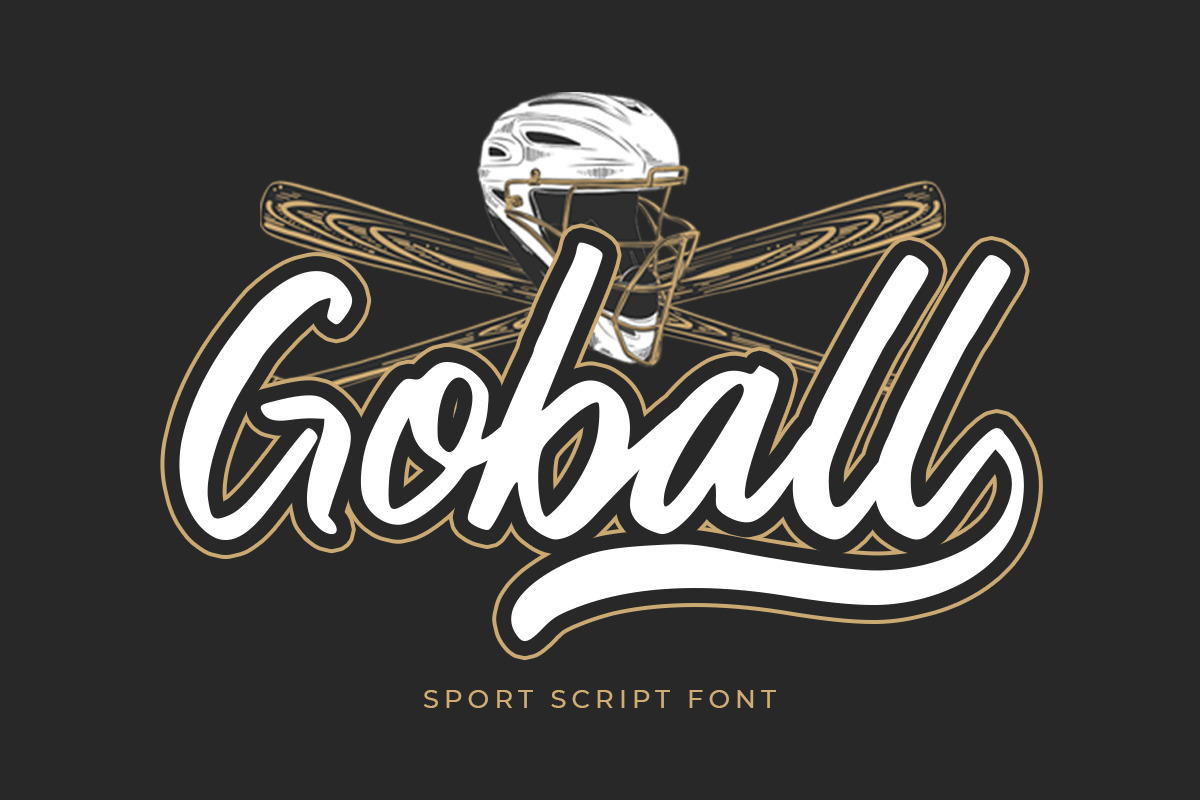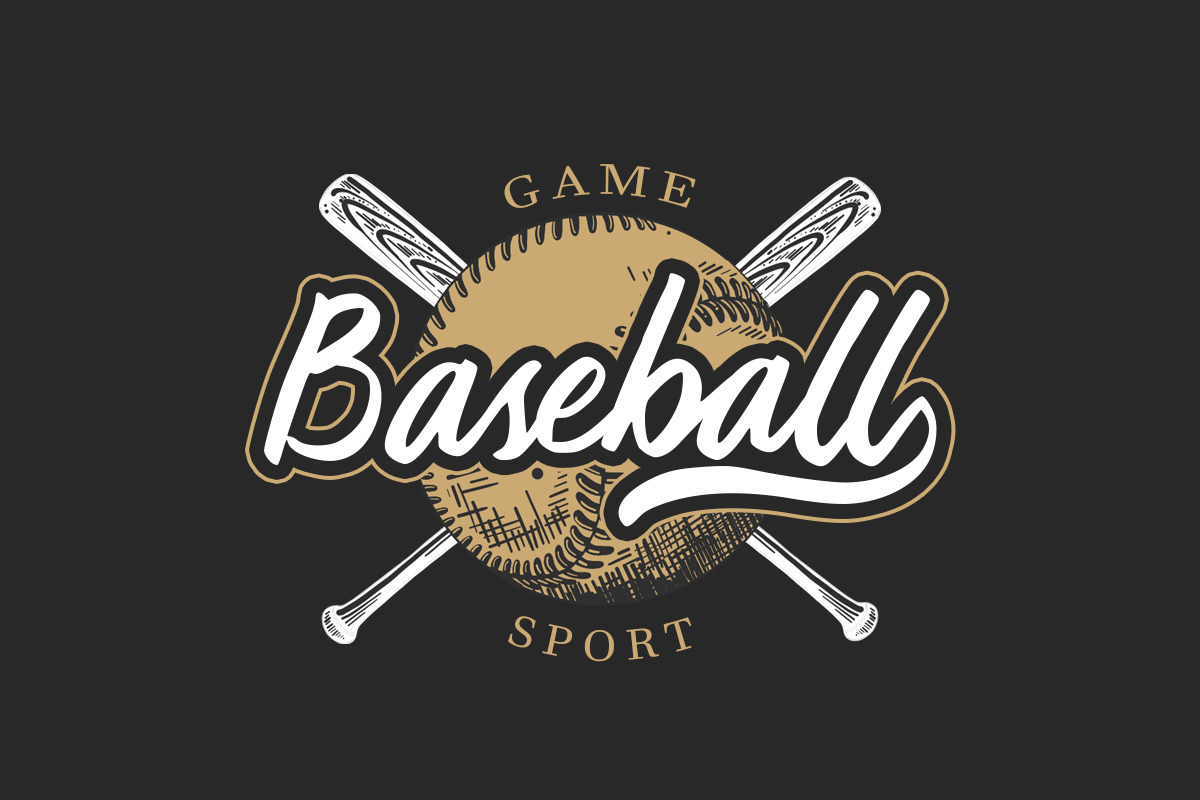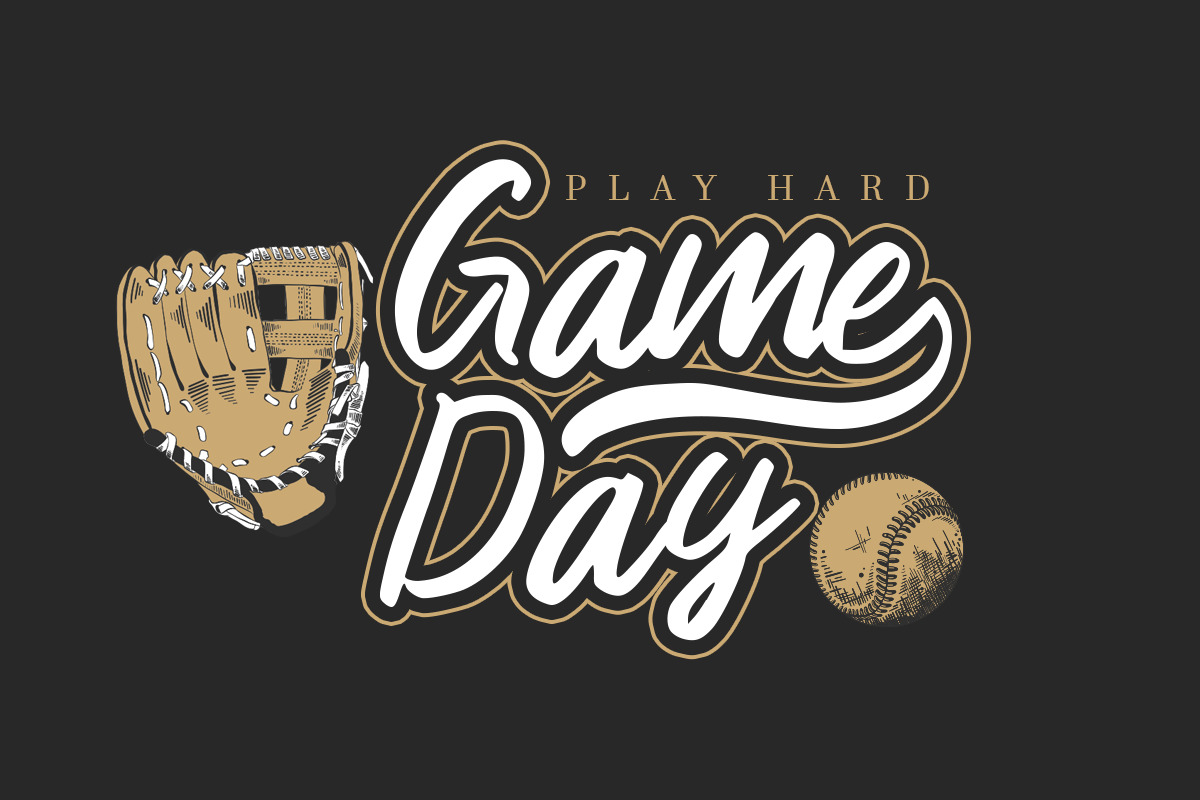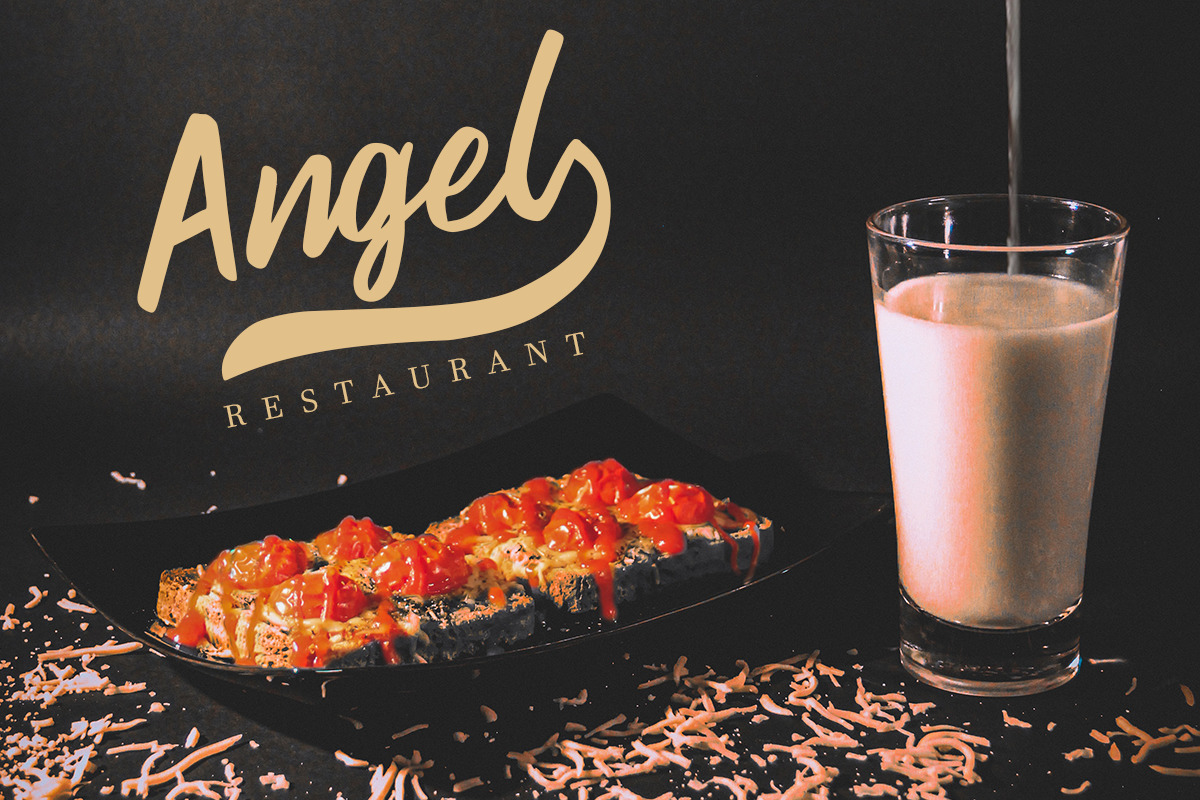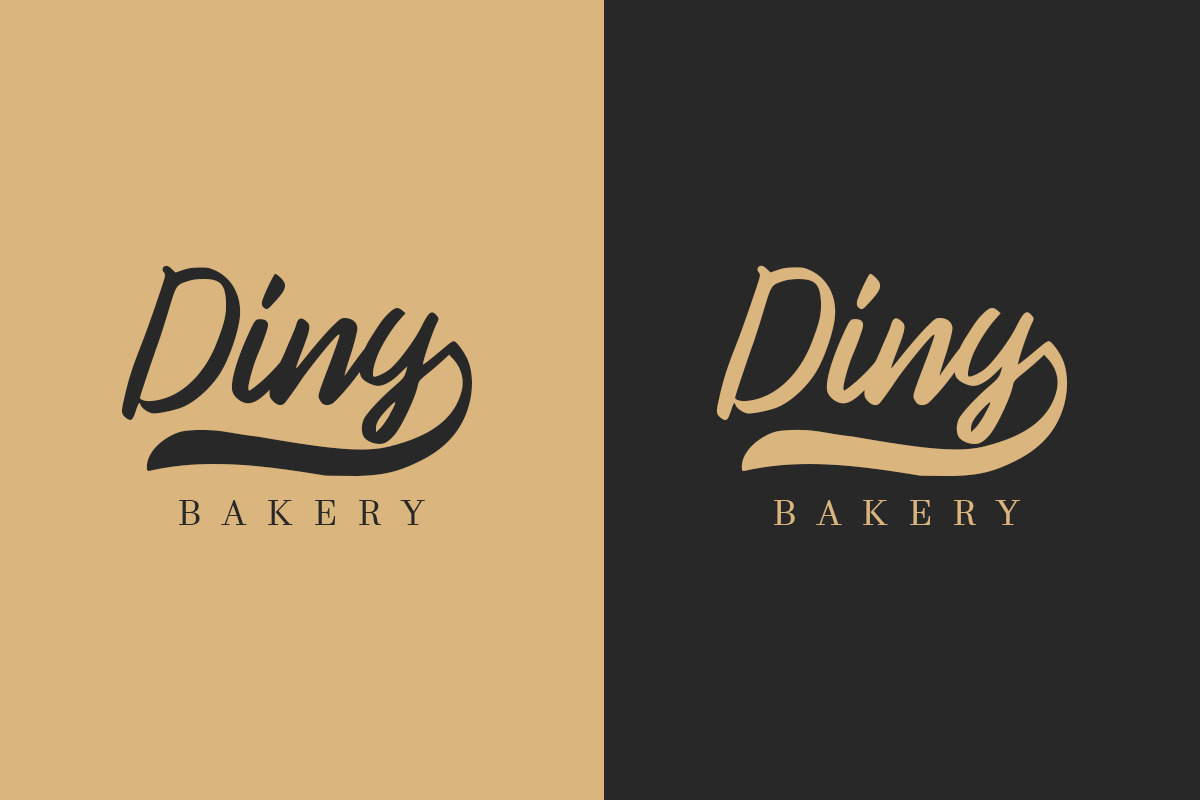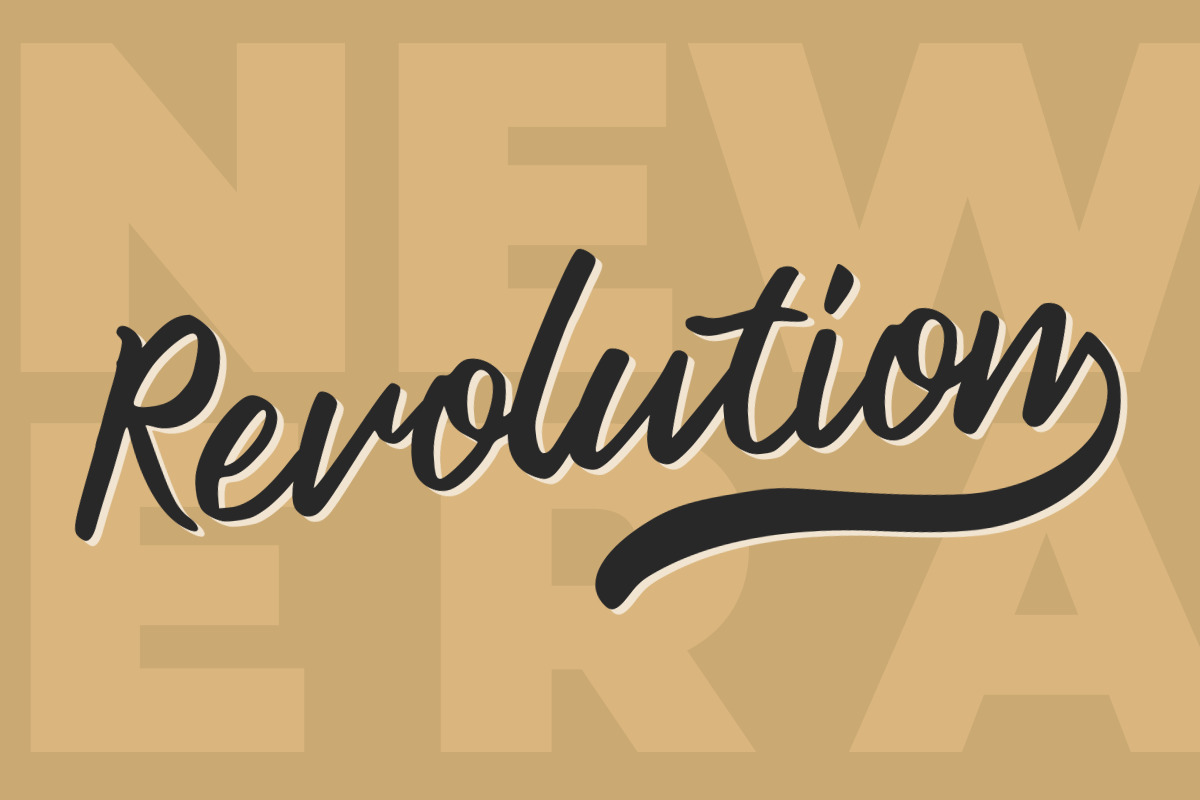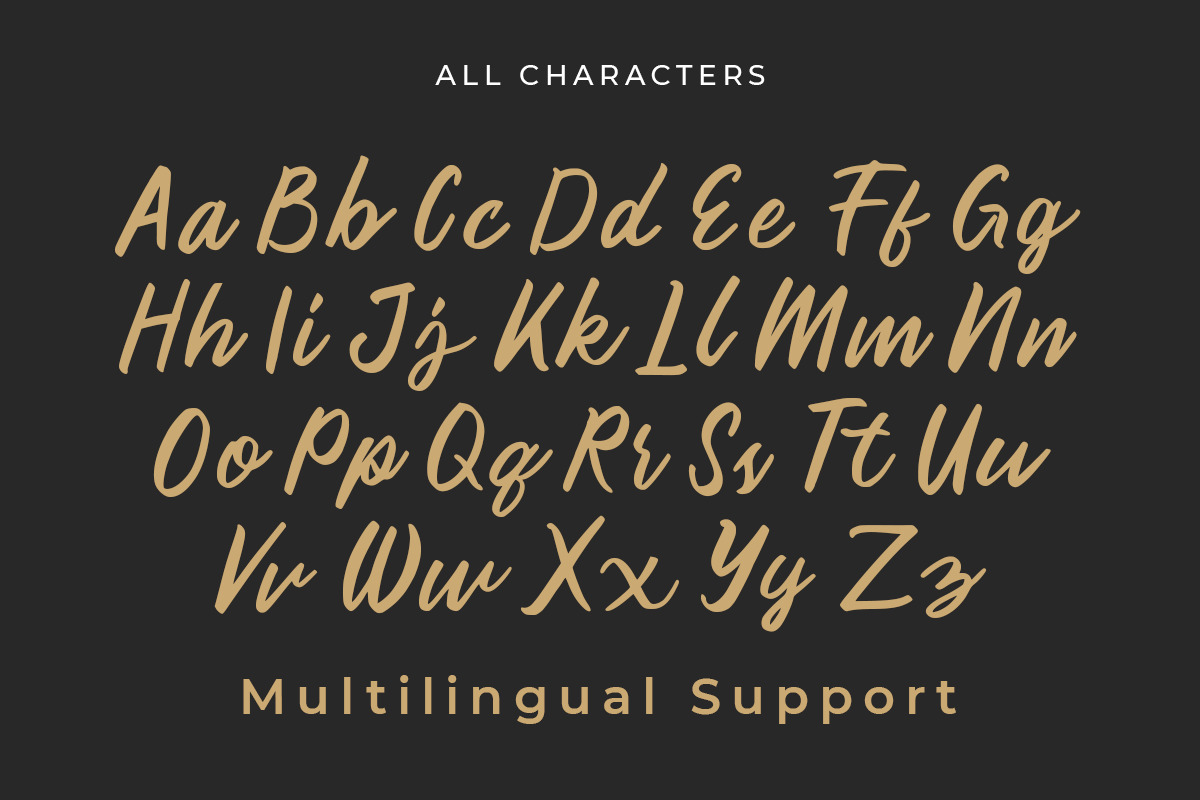
Goball – Sport Script Font
Introducing Goball – Sport Script Font
This unique typeface combines the elegance of a script font with the boldness of a sports font, creating a look that is both dynamic and stylish. Goball is perfect for creating designs that capture the energy and excitement of sports. Its bold strokes and sweeping curves will help your designs stand out and grab the attention of your audience.